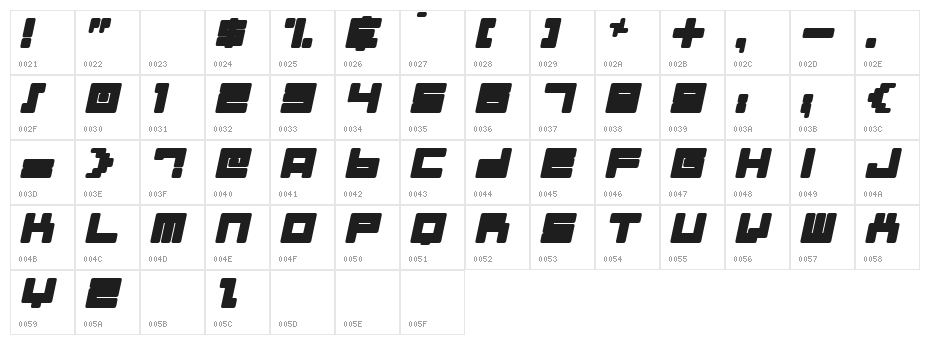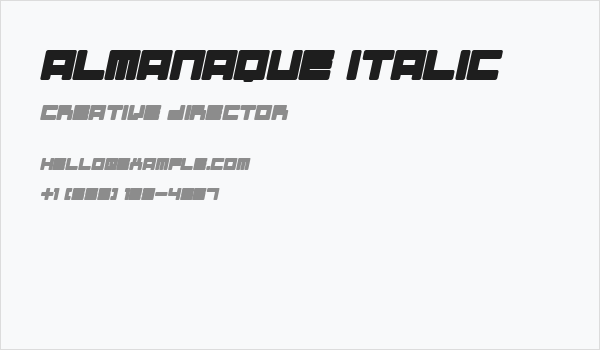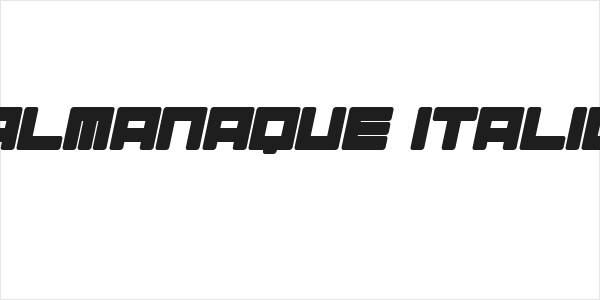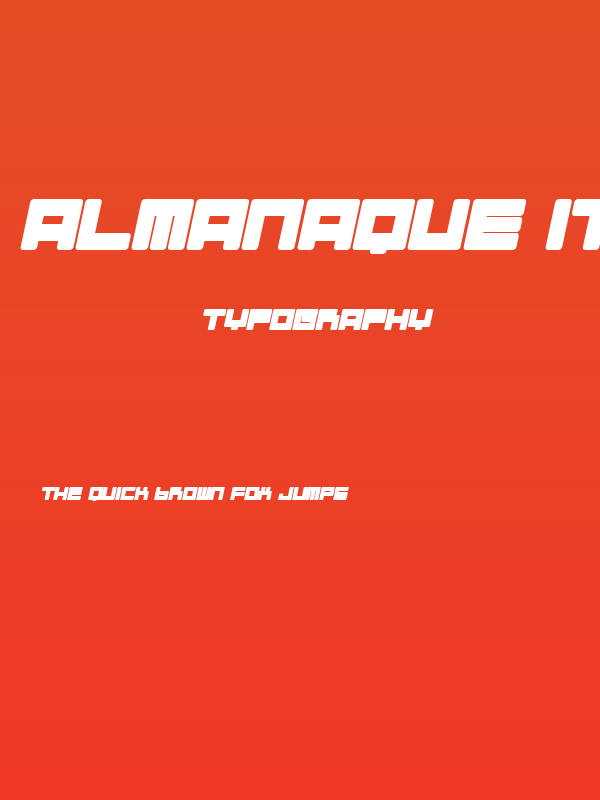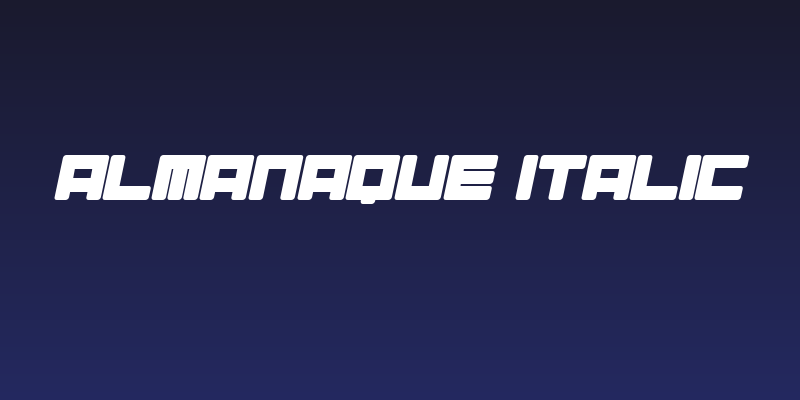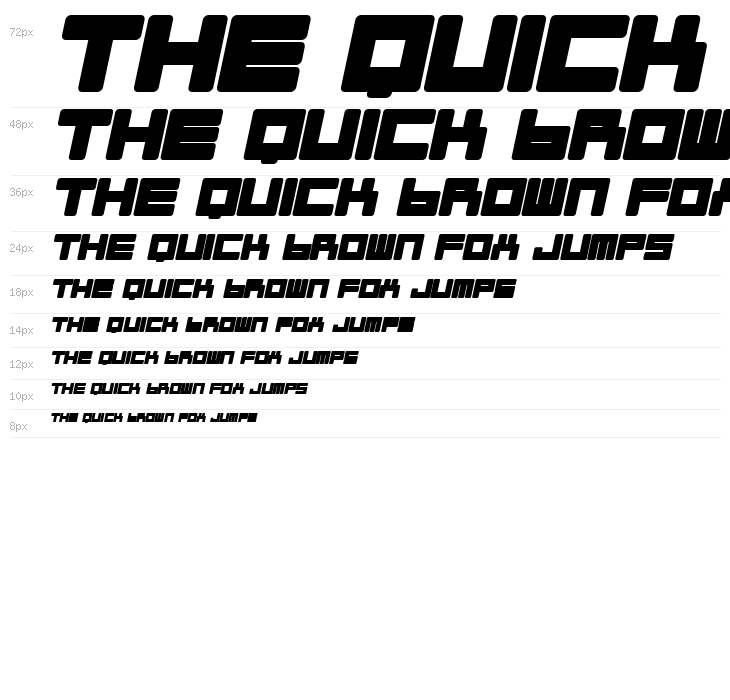
Almanaque Italic Font
Almanaque Italic Description
This font features a bold and futuristic design with a strong geometric structure. The characters are wide and have a blocky appearance, giving them a robust and impactful look. The italic style adds a dynamic and forward-leaning aspect to the text, enhancing its modern and energetic feel. The font is highly legible, with distinct and well-defined shapes that make it suitable for various display purposes. The consistent stroke thickness across all characters contributes to a uniform and cohesive appearance. Special characters and numbers maintain the same bold and geometric style, ensuring visual harmony throughout.
| Proposed Projects | Ideal for technology branding, video game titles, sci-fi posters, and modern advertising campaigns. |